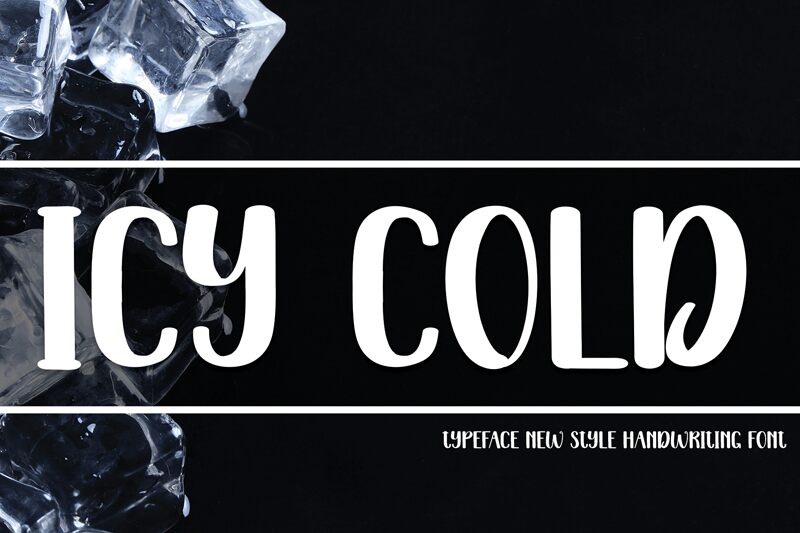
Icy Cold
Icy Cold, designed by Scratchones, brings a refreshing chill to the realm of typography with its semi-bold, condensed brush style. The font's strokes exude an organic fluidity reminiscent of paint on canvas, yet the condensed form allows for impactful statements in tight spaces. Its aesthetic is characterized by a vivacious blend of casual artistry and structured dynamism, making it an excellent choice for designers looking to infuse energy into branding, advertising campaigns, and creative visuals.
The semi-bold weight ensures legibility while retaining a sense of lightness that complements the font’s brisk nature. Icy Cold's versatile appearance is as adaptable as it is striking; it stands out on event posters, adds personality to editorial headlines, and gives logos an edgy yet approachable vibe. Embrace the cool factor with Icy Cold for designs that require a touch of spirited sophistication and visual flair.